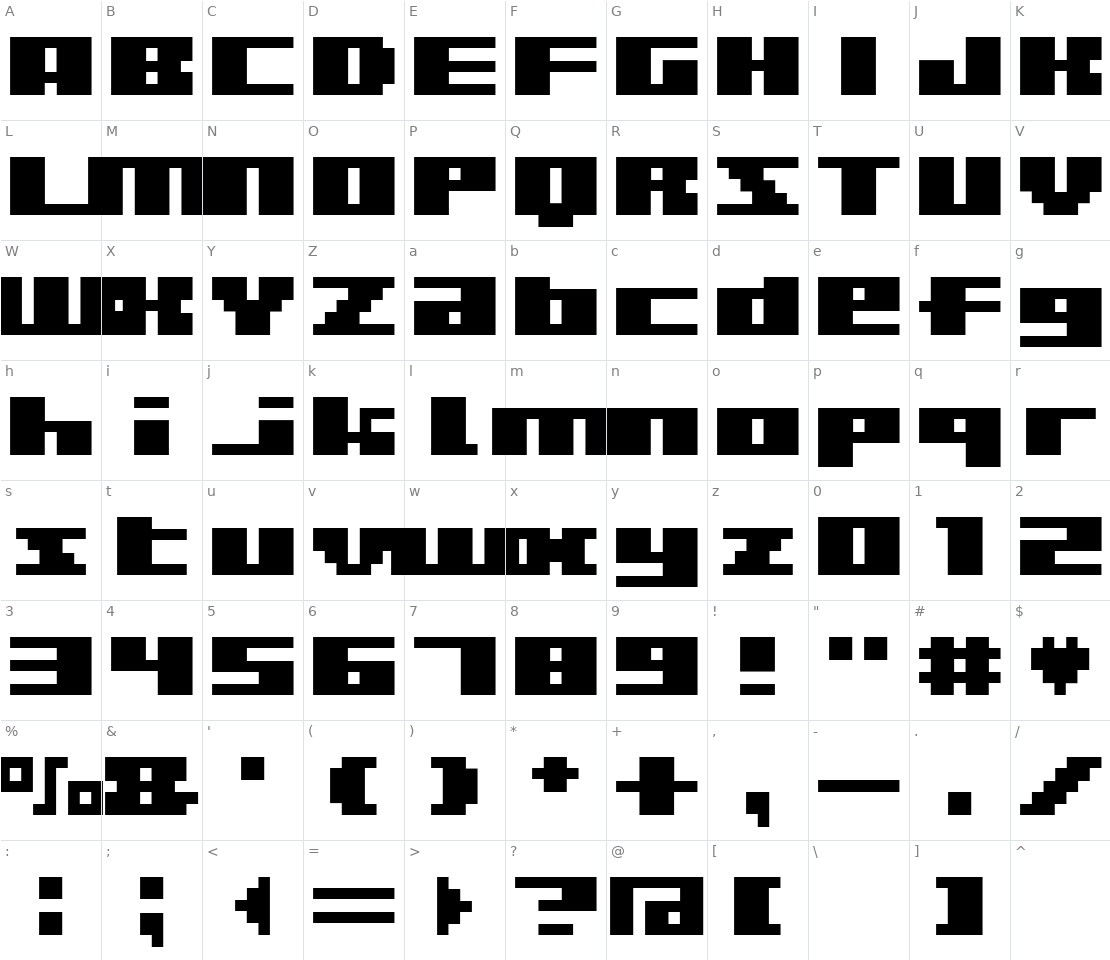
BM Rizer
by BitmapMania
BM Rizer is a heavy bitmap face from BitmapMania with thick, blocky pixel letterforms that carry serious visual weight. The geometric grid construction gives it a rigid, digital feel that recalls early computer displays and low-res game interfaces. Best kept to headlines and short text where its bold, chunky presence can do the talking.